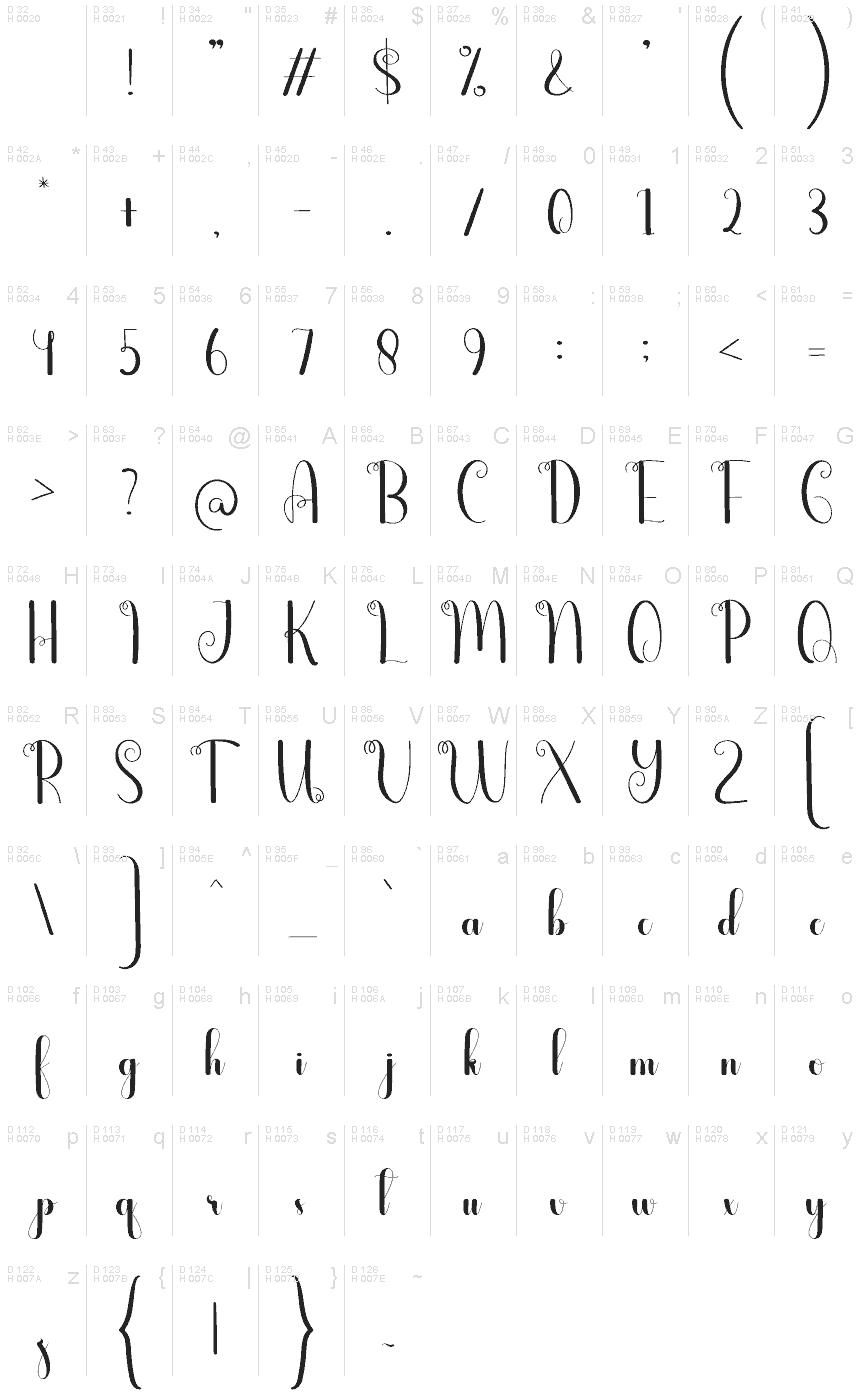
Ourside
Ourside font by Andi Moz is an elegant and expressive calligraphy font with a flowing, cursive style. Both sophisticated and decorative, the letters bear a true chic appearance that creates visual appeal when included in any design.